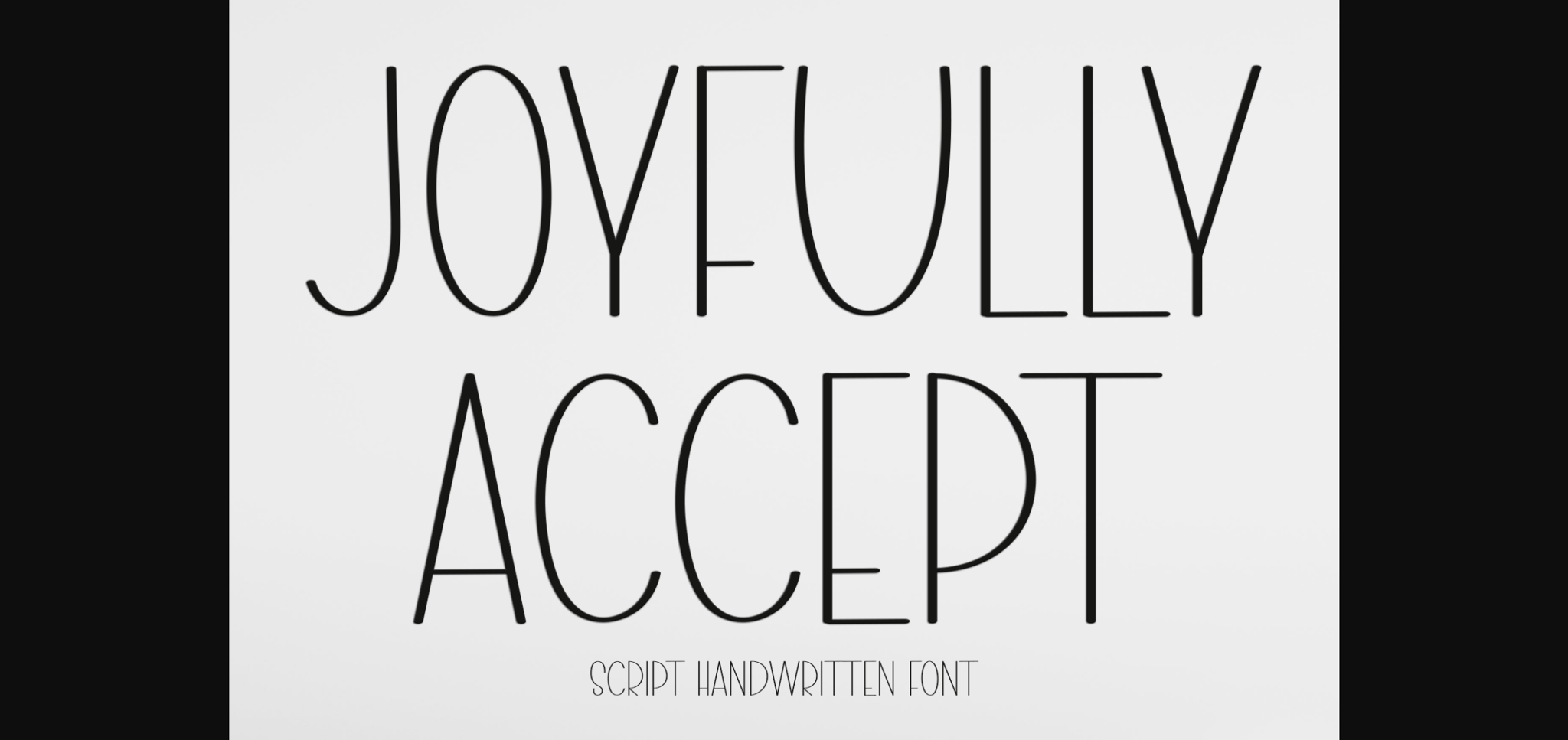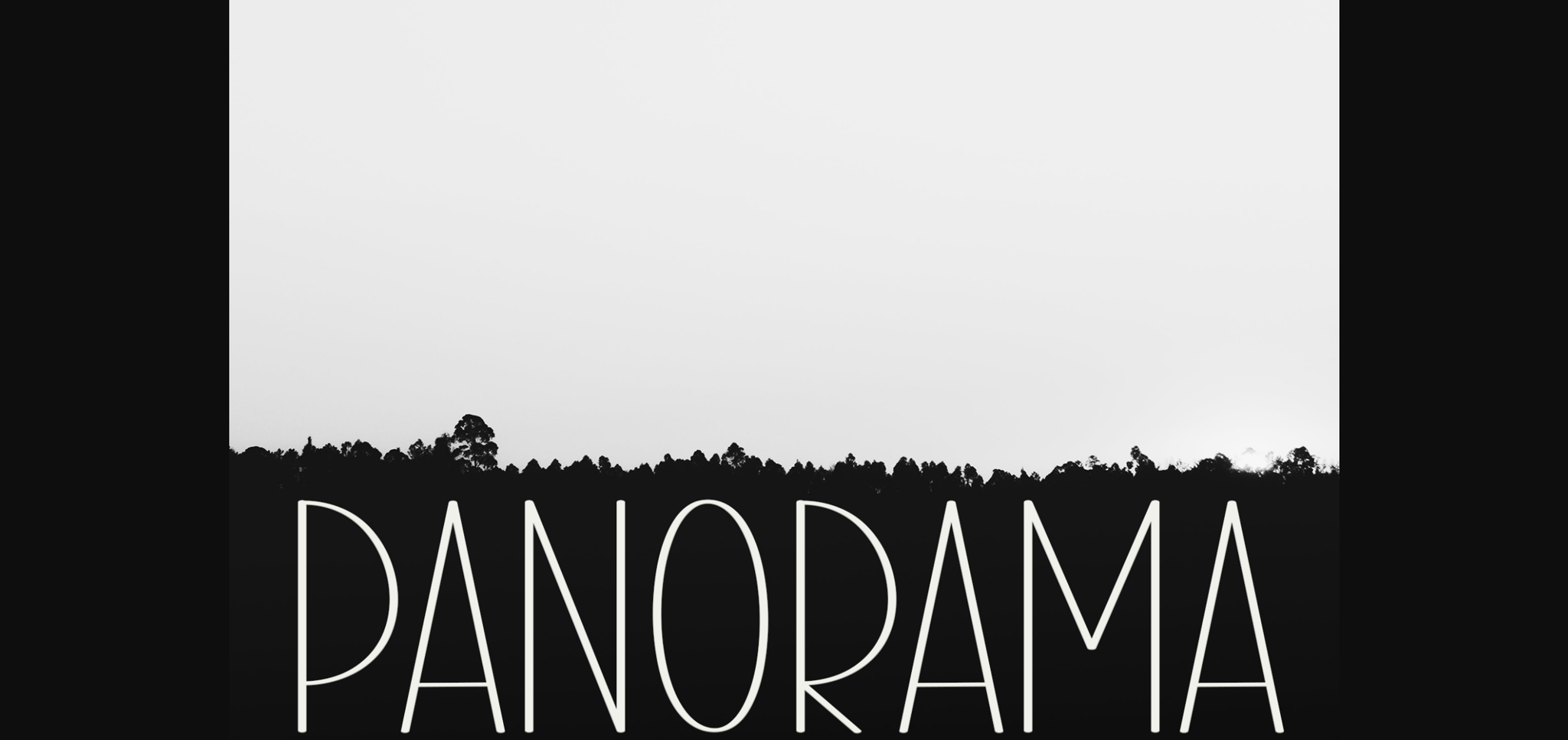
About Joyfully Accept Font
Joyfully Accept is a cool and modern sans-serif font. Whether you’re using it for crafts, digital design, presentations, or creating greeting cards, this font has the potential to be your go-to font, whatever the occasion.